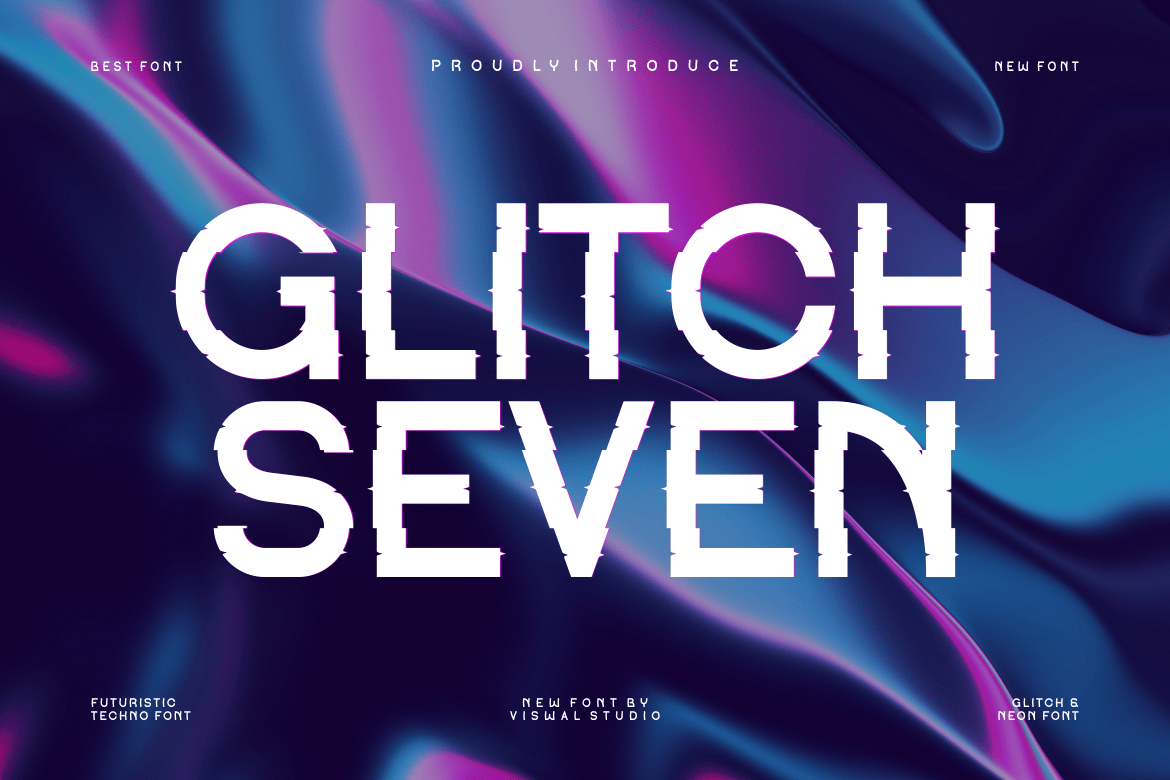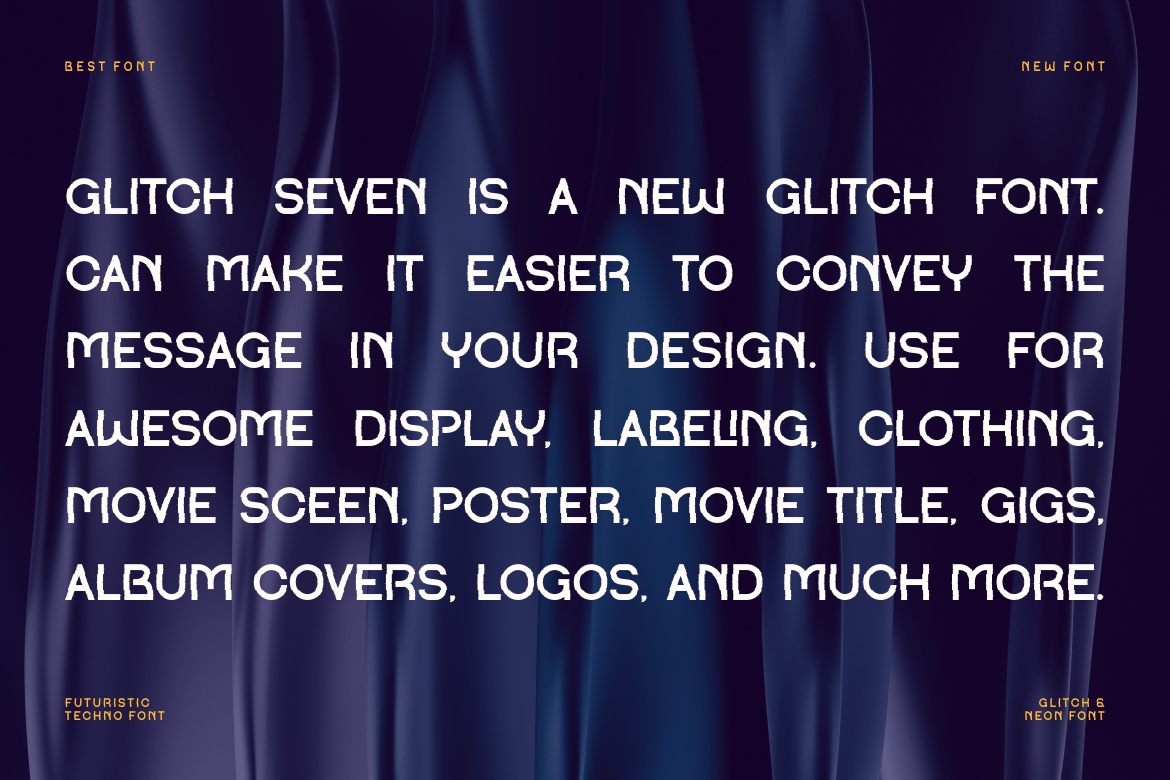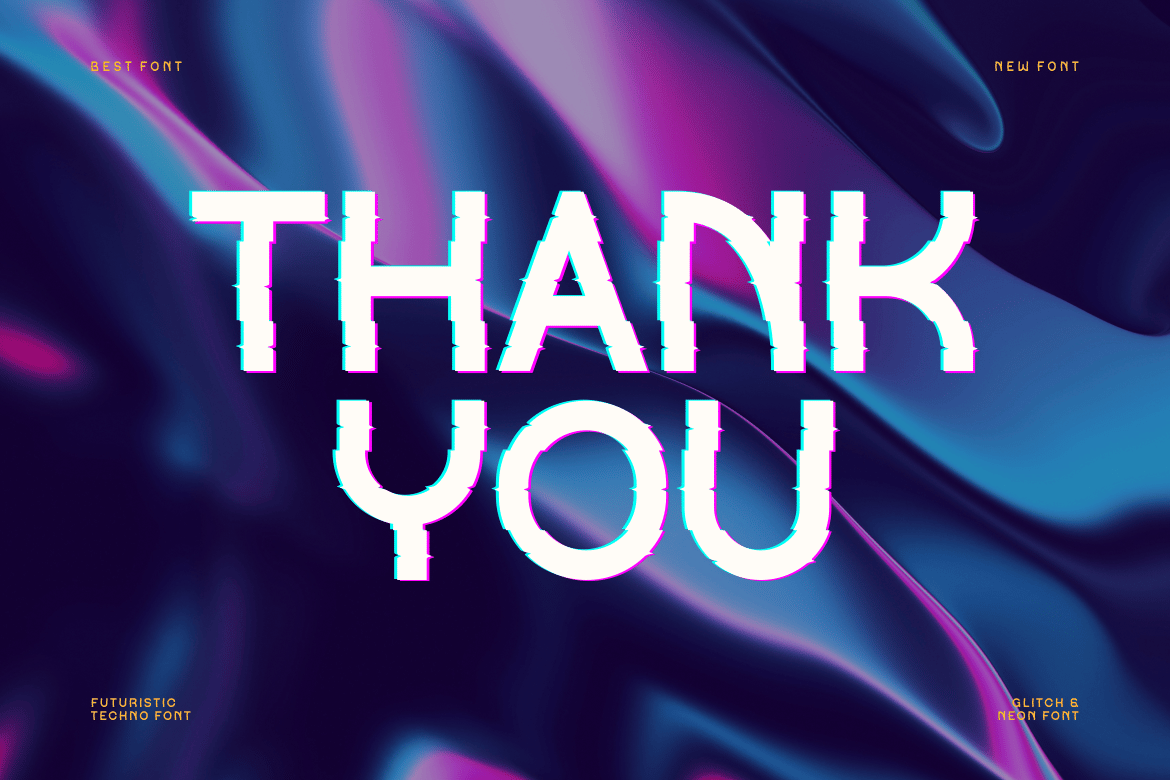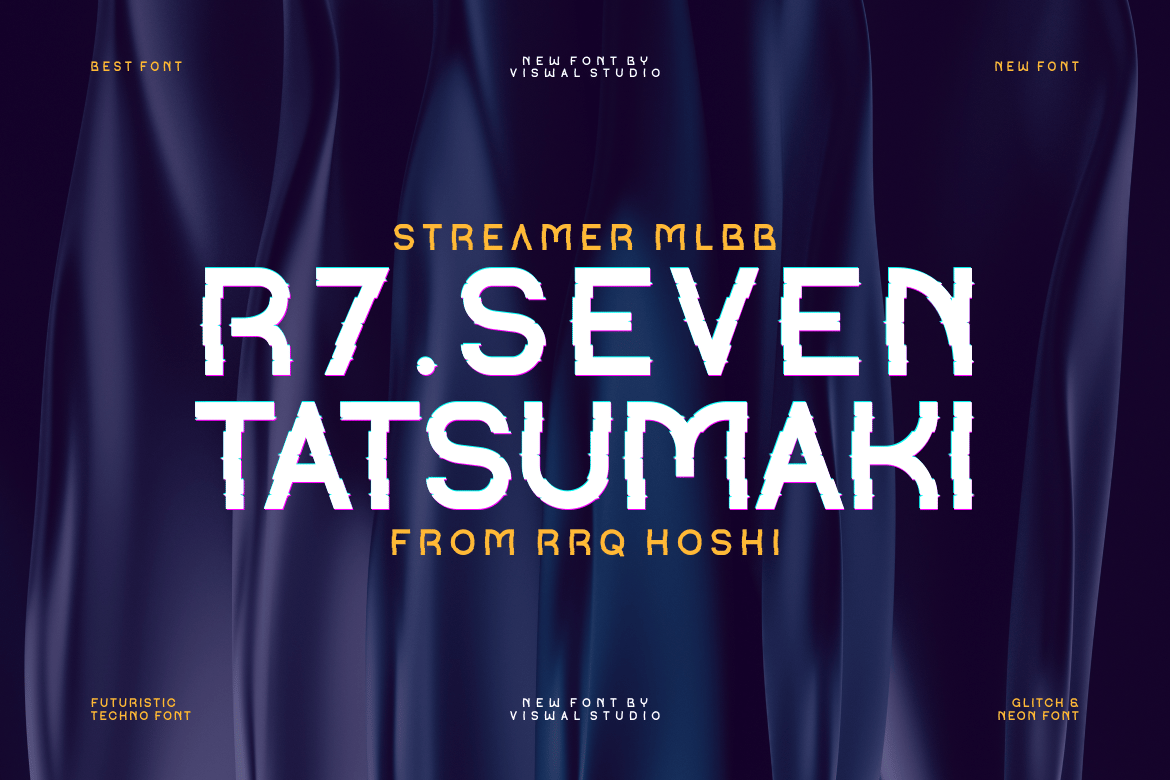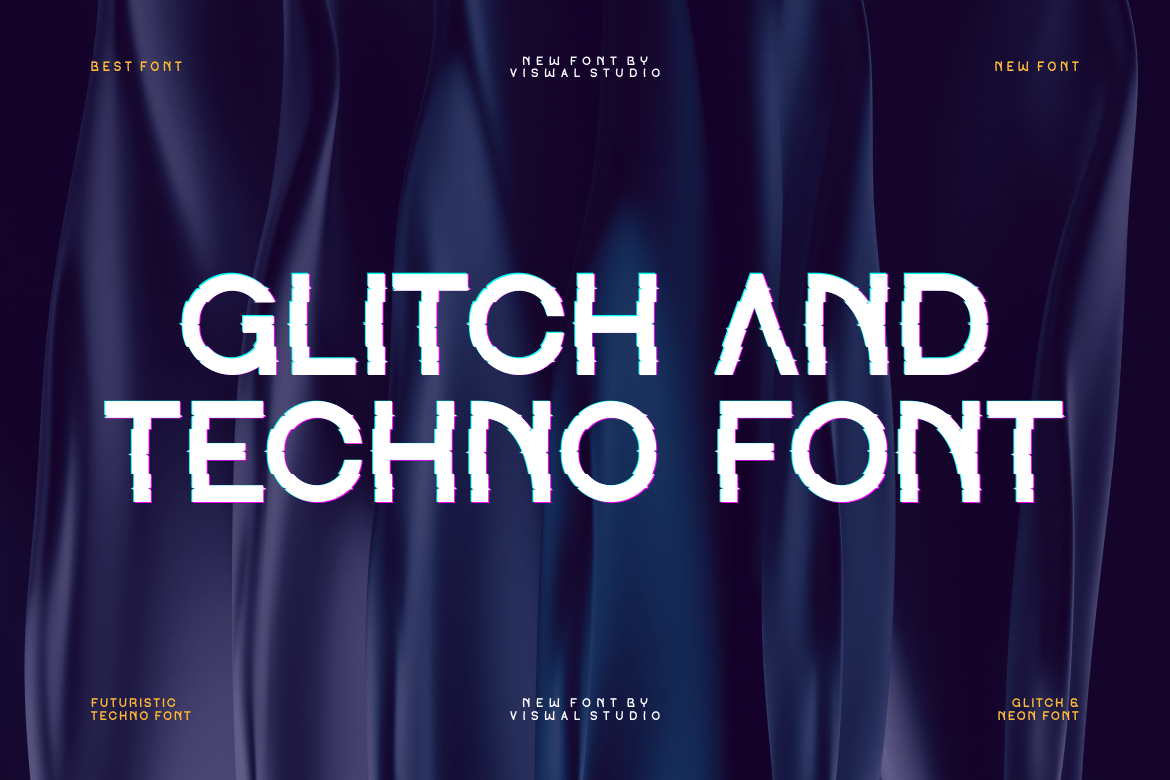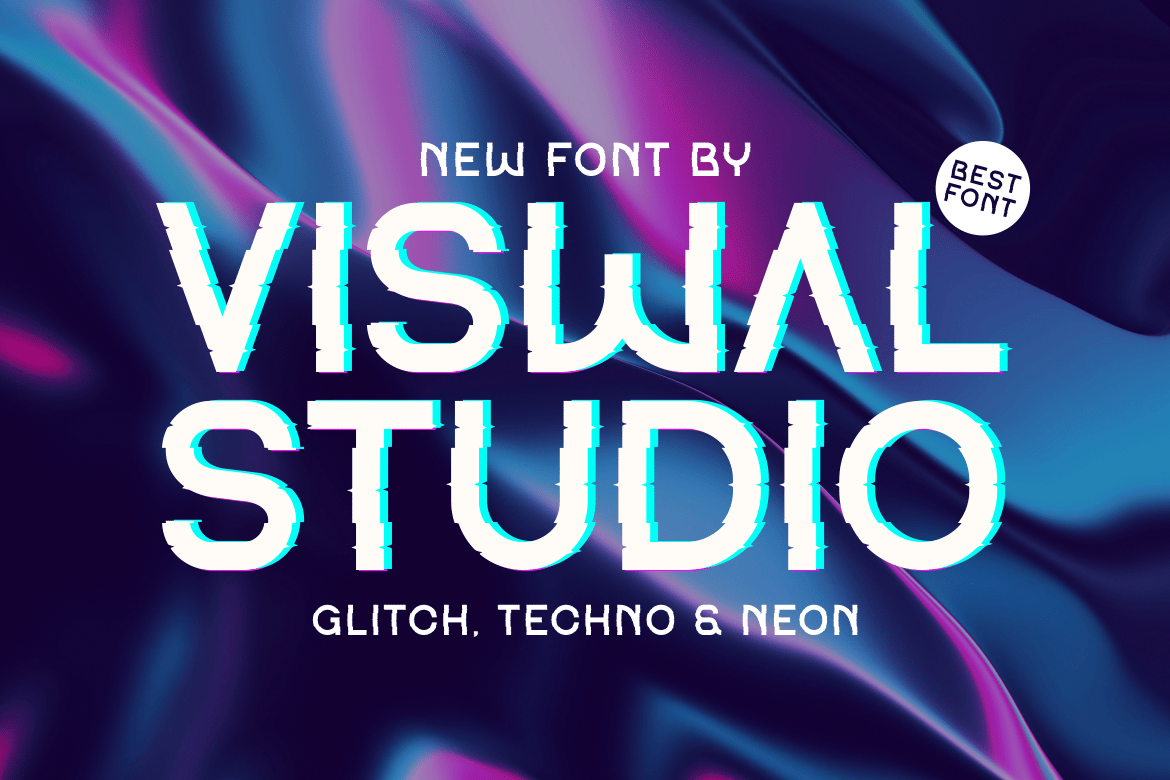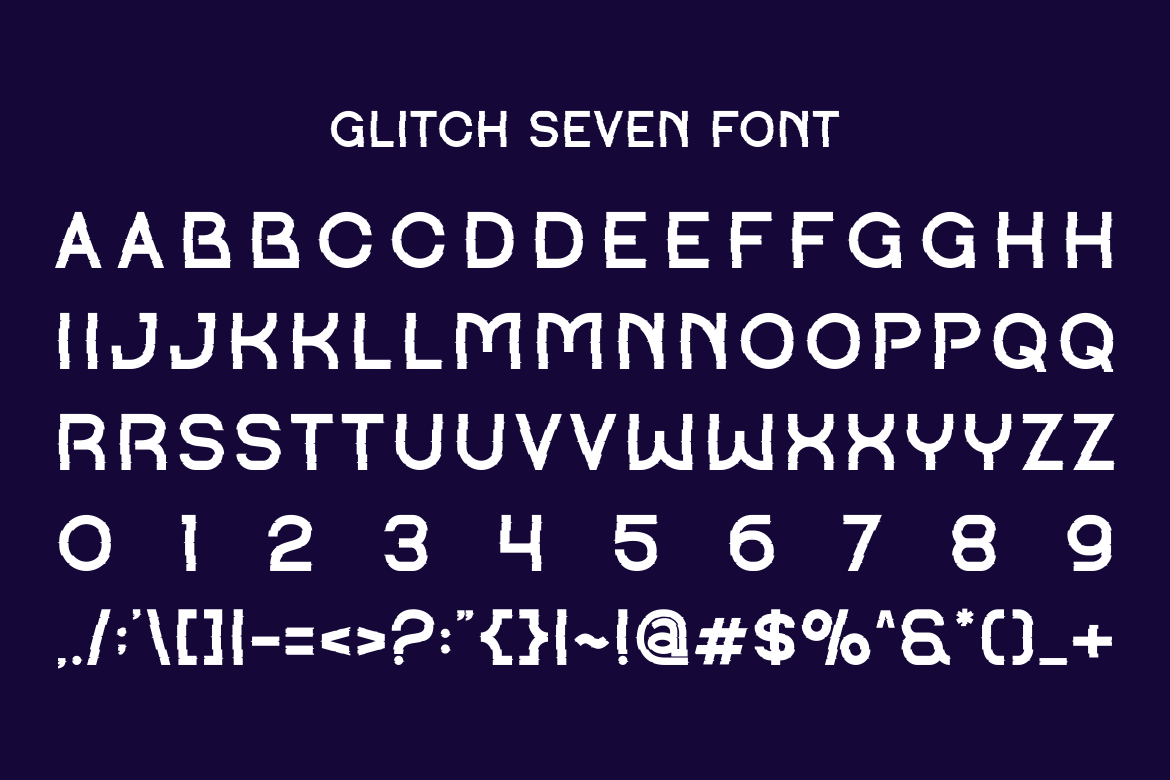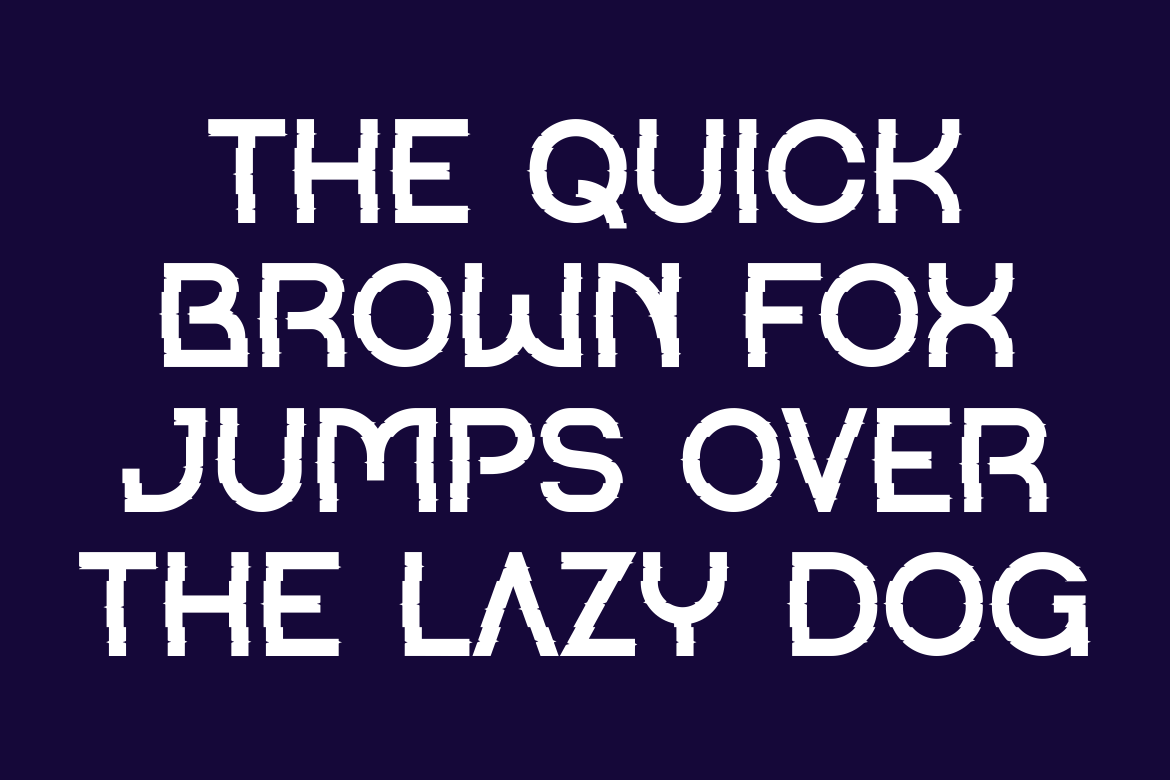
Glitch Seven – Glitch & Futuristic Font
Presenting Glitch Seven – Font is suitable for badge, labels, logo, branding, magazine, poster and etc. Our fonts have Uppercase & Lowercase, Numeral & Punctuation, Multilingual support and Opentype Features. For Amazing designs you can mix with other fonts as a complement.